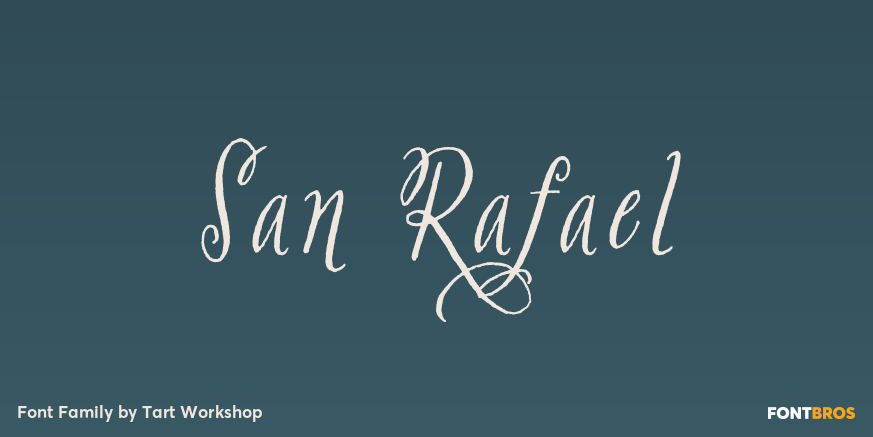
About San Rafael
Clear skies. Crisp air. Ripe organic produce. Artisan bread at the farmer\’s market. Olives. Fragrant bouquets. Guernseys in the meadow. Glimpses of the Golden Gate and the city on the bay. Afternoons in the forest, foraging mushrooms. Day trips to wine…